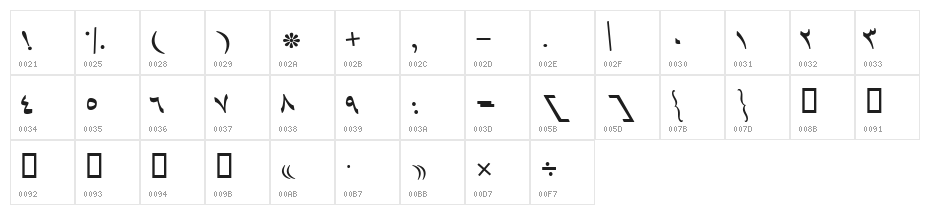
Baaraan Italic Font
Baaraan Italic Description
This font features a unique and artistic design with a flowing, cursive style that gives it an elegant and sophisticated appearance. The characters are slightly slanted, indicative of an italic style, and exhibit a consistent stroke width that maintains readability while adding a touch of flair. The numerals are distinctively styled, with curves and angles that complement the overall aesthetic. Special characters are creatively integrated, maintaining the font's cohesive look. This font is suitable for projects that require a touch of elegance and creativity.
| Overall Style | Elegant, Artistic |
| Use Case | Logos, Invitations, Artistic Projects |
| Proposed Projects | Ideal for wedding invitations, elegant branding, artistic posters, and creative editorial design. |